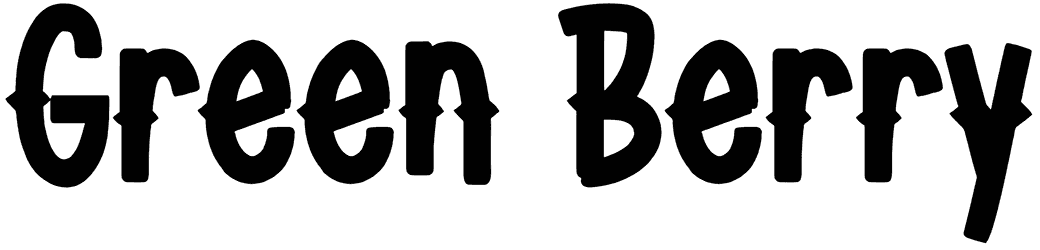
Green Berry Font
If you have a plan to give a playful and modern visual to your words, you can rely on this cartoon font with its unique face. Adorned casual letters of the Green Berry font will be cool for many designs, like a set of cute stickers or a kindergarten poster. This display font doesn’t support all of the numbers, but we suggest you test it and surprise your followers.